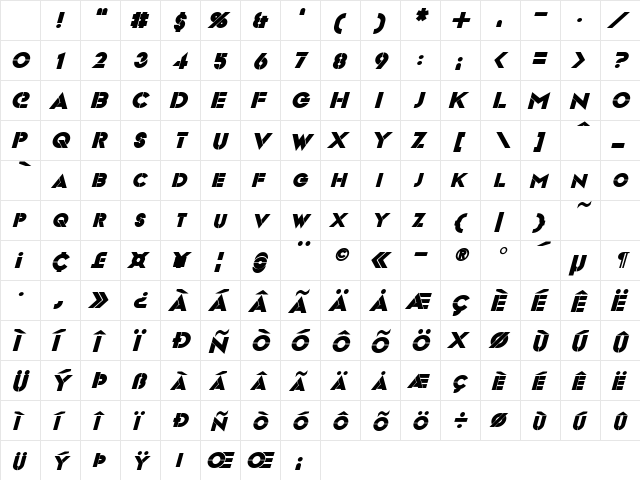
Videopac is a composed and adaptable typeface that performs quietly and consistently across a wide range of design contexts. The slanted form adds forward momentum and visual energy. Its bold stroke weight gives it real presence on the page.
Pro Tip: Use Videopac for emphasis, pull quotes, and subheadings where its slanted energy can add rhythm to the layout.